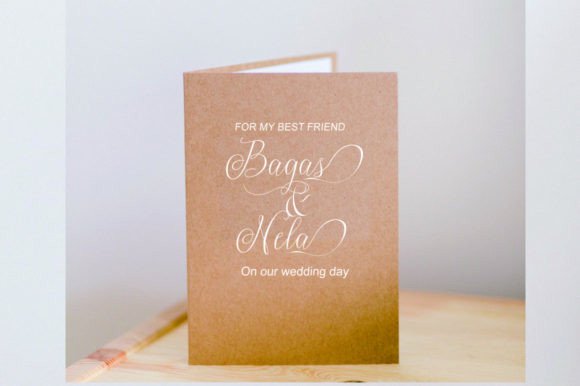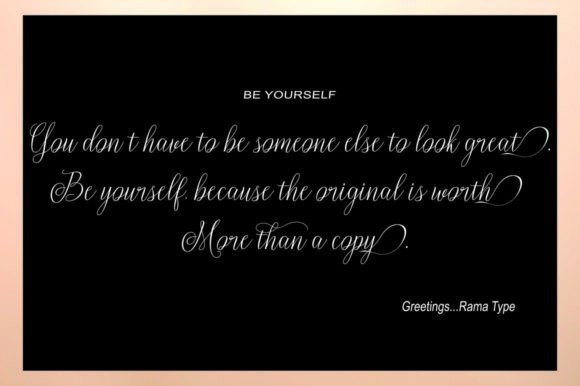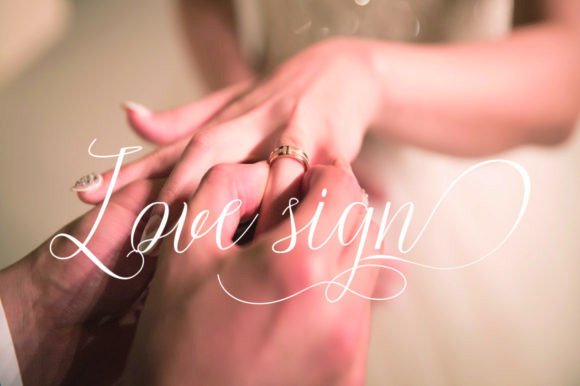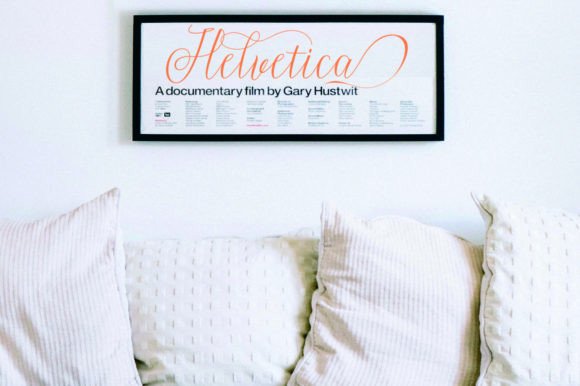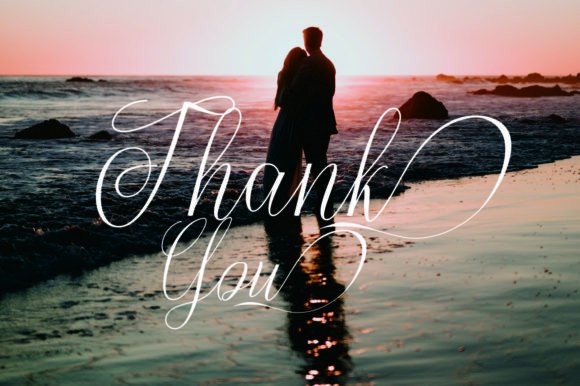
Heghan Font: The Soft and Sweet Calligraphy Typeface for Designers and Crafters
Are you a designer or crafter looking for a font that can add a touch of elegance and whimsy to your projects? Look no further than Heghan Font, a soft and sweet calligraphy typeface that is perfect for a variety of applications. In this article, we’ll take a closer look at Heghan Font, its features, and how you can use it to elevate your designs.
What is Heghan Font?
Heghan Font is a beautiful calligraphy typeface that is characterized by its soft and sweet curves. The characters in Heghan Font dance along the baseline, giving it a casual and elegant touch. This font is perfect for designers and crafters who want to add a personal and handmade touch to their projects.
Features of Heghan Font
Heghan Font has several features that make it a versatile and desirable font for designers and crafters. Some of its key features include:
- Soft and sweet curves: Heghan Font has a delicate and feminine touch, making it perfect for projects that require a personal and elegant feel.
- Casual and elegant: The font’s casual and elegant touch makes it suitable for a wide range of applications, from logos and wedding invitations to headings and labels.
- Characters that dance along the baseline: The unique movement of the characters in Heghan Font adds a playful and whimsical touch to any project.
Uses of Heghan Font
Heghan Font is a versatile font that can be used for a variety of purposes, including:
- Logos: Heghan Font is perfect for creating custom logos for businesses, events, or personal projects.
- Wedding invitations: The font’s elegant and whimsical touch makes it ideal for wedding invitations, save-the-date cards, and other wedding-related stationery.
- Headings: Heghan Font can be used to create beautiful headings for blogs, articles, and other written content.
- T-shirts: The font’s casual and playful touch makes it perfect for designing custom t-shirts, hoodies, and other apparel.
- Labels: Heghan Font can be used to create custom labels for products, gifts, or other items.
- Posters: The font’s elegant and eye-catching design makes it suitable for creating posters for events, promotions, or advertisements.
- Badges: Heghan Font can be used to create custom badges for events, conferences, or other gatherings.
Why Choose Heghan Font?
There are many reasons why designers and crafters choose Heghan Font for their projects. Some of the benefits of using Heghan Font include:
- Unique and eye-catching design: Heghan Font has a distinctive and elegant design that sets it apart from other fonts.
- Versatility: The font can be used for a wide range of applications, from logos and wedding invitations to headings and labels.
- Easy to read: Despite its elegant and cursive design, Heghan Font is easy to read and understand.
In conclusion, Heghan Font is a beautiful and versatile calligraphy typeface that is perfect for designers and crafters looking to add a touch of elegance and whimsy to their projects. With its soft and sweet curves, casual and elegant touch, and unique character movement, Heghan Font is suitable for a wide range of applications. Whether you’re creating logos, wedding invitations, headings, or labels, Heghan Font is a great choice for any project that requires a personal and handmade touch.